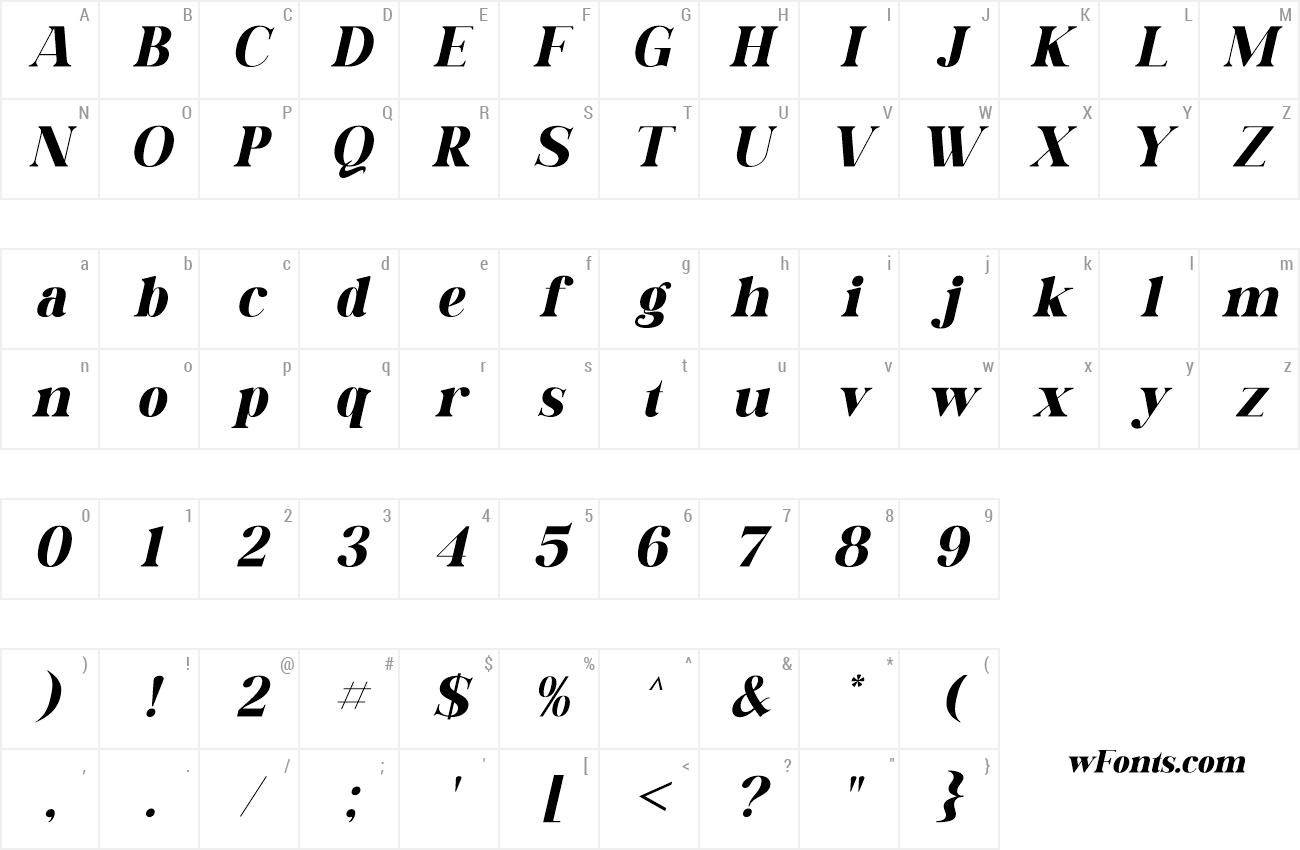
Daretro Mandra Font
Daretro Mandra Font - Web daretro mandra luxury serif font, from letterena, is a luxury serif font, suitable for any projects such as: By installing or using this font, you are agree to the.
By installing or using this font, you are agree to the. Web daretro mandra luxury serif font, from letterena, is a luxury serif font, suitable for any projects such as:
Web daretro mandra luxury serif font, from letterena, is a luxury serif font, suitable for any projects such as: By installing or using this font, you are agree to the.
Daretro Mandra Font
Web daretro mandra luxury serif font, from letterena, is a luxury serif font, suitable for any projects such as: By installing or using this font, you are agree to the.
By installing or using this font, you are agree to the. Web daretro mandra luxury serif font, from letterena, is a luxury serif font, suitable for any projects such as:
Web daretro mandra luxury serif font, from letterena, is a luxury serif font, suitable for any projects such as: By installing or using this font, you are agree to the.
By installing or using this font, you are agree to the. Web daretro mandra luxury serif font, from letterena, is a luxury serif font, suitable for any projects such as:
Daretro Mandra font by Letterena Studios FontRiver
Web daretro mandra luxury serif font, from letterena, is a luxury serif font, suitable for any projects such as: By installing or using this font, you are agree to the.
By installing or using this font, you are agree to the. Web daretro mandra luxury serif font, from letterena, is a luxury serif font, suitable for any projects such as:
Web daretro mandra luxury serif font, from letterena, is a luxury serif font, suitable for any projects such as: